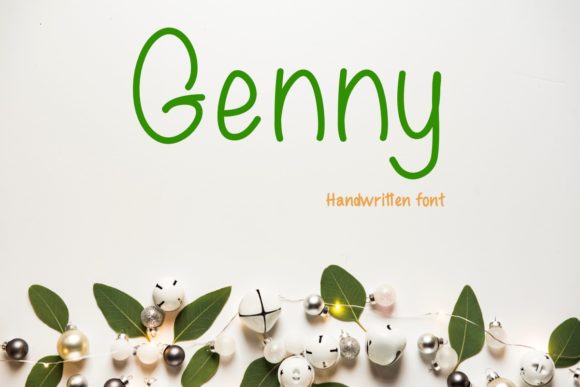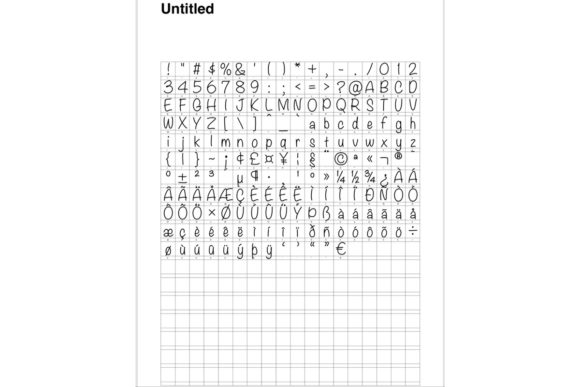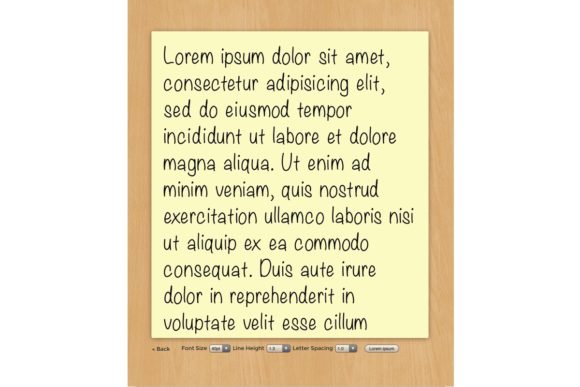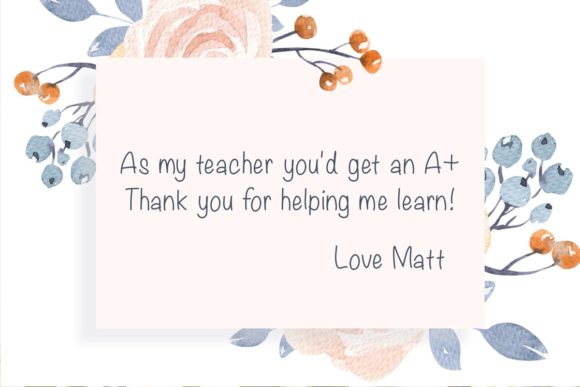
Genny Font
About Genny Font
Genny is a cute and natural handwritten font. This sweet and original look will appeal to a wide range of crafty ideas, from letterheads and titles, to stationery.